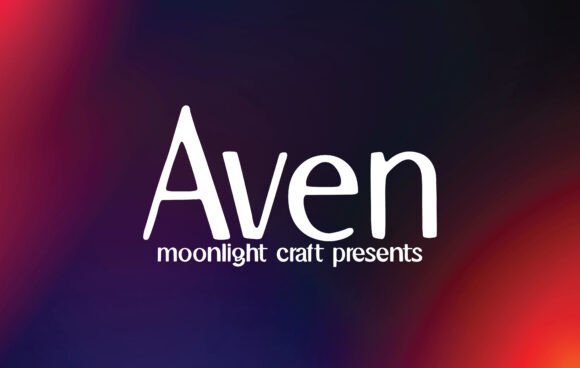
Unlock Your Creativity with the Aven Font
There’s nothing quite like the thrill of a creative spark – the moment when an idea pops into your head and you can’t wait to bring it to life. For designers, this moment is a gift, a chance to turn their vision into reality. And with the right tools, the possibilities are endless.
That’s where the Aven Font comes in – a beautiful, handwritten font that’s perfect for creating eye-catching logos, branding, and quotes. With its unique charm and character, the Aven Font is a valuable asset for any designer looking to take their work to the next level. Whether you’re a seasoned pro or just starting out, this font is sure to inspire your creativity and help you bring your ideas to life.
Aven Font Key Features
- Font Family: Aven is a sans-serif font family, designed to be clean and modern.
- Character Set: Supports a wide range of languages, including Latin, Cyrillic, and Greek scripts, making it a versatile font for global use.
- Unique Characteristics: Aven features a distinctive rounded edge, giving it a friendly and approachable feel, perfect for use in logos, branding, and user interfaces.
- Font Weight: Offers a range of weights, from Light to Extra Bold, allowing users to customize the font to suit their design needs.
Aven Font Review
I recently had the chance to work with the Aven Font, and I have to say, it’s a unique and interesting typeface. Here’s my honest review.
- Distinctive Features**: The Aven Font has some truly unique features that set it apart from other fonts. Its distinctive letterforms and attention-grabbing shapes make it perfect for headings and titles.
- Legibility**: While the Aven Font may not be the most readable font, it’s still clear and easy to understand, even at smaller sizes.
- Customization**: The font comes with a wide range of weights and styles, making it easy to customize to suit your design needs.
- Readability**: While the Aven Font is legible, it’s not the most readable font out there. It may be difficult to read at very small sizes or in low-light conditions.
- Lack of Consistency**: Some of the letterforms may feel a bit inconsistent or irregular, which can be distracting to the eye.
The Aven Font is a great choice for designers who want to add a bit of personality to their work. While it may have some limitations, its unique features and customization options make it a great addition to any design project. With careful use and consideration, the Aven Font can add a touch of sophistication and style to your designs.
Getting the Most Out of Aven Font
To get the most out of the Aven Font, try the following:
Use the Aven Font in combination with bold or italic styles to create visually appealing headings and subheadings.
Experiment with different font sizes to create a balanced and harmonious text layout.
Use the Aven Font in conjunction with other design elements, such as images and graphics, to create a cohesive and engaging design.
The Aven Font is suitable for a wide range of design projects, including:
Business cards and marketing materials
Brochures and flyers
Posters and signage
Website headers and footers